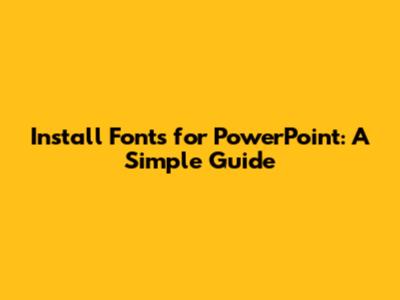
Readability: This is crucial. Make sure your chosen font is easy to read, even from a distance. Avoid overly decorative or complex fonts for body text.
Purpose: Match the font to the tone and subject of your presentation. A serious topic might call for a more formal font, while a creative presentation can handle something more whimsical.
Consistency: Stick to a limited number of fonts (2-3 max) throughout your presentation to maintain a cohesive look.
Font Pairing: Not all fonts play nicely together. Experiment with different font pairings to find combinations that complement each other and create a visually appealing hierarchy. Tools and resources online can provide suggestions for harmonious font pairings. A classic pairing is a sans-serif font for headings and a serif font for body text, as this offers contrast and improves readability. Another consideration is the font weight. Use different weights of the same font family to create visual interest without introducing too many different fonts. For example, using bold for headings and regular for body text can make your slides more organized and easier to follow. Also, think about the cultural context of your font choice. Some fonts may have unintended connotations in different cultures, so it’s good to be aware of these nuances, especially when presenting to a global audience.
Hey guys! Ever felt like your PowerPoint presentations are missing that special something? Maybe the default fonts just aren't cutting it, and you're itching to add a bit of flair and personality. Well, you're in luck! Installing new fonts in PowerPoint is super easy, and it can dramatically improve the visual appeal of your slides. In this guide, we'll walk you through everything you need to know to get those snazzy new fonts up and running in no time. We will cover how to find the best fonts to download, install fonts on Windows and macOS operating systems, and how to embed fonts into your PowerPoint presentation.
Finding the Perfect Fonts
Before diving into the installation process, let's talk about finding the right fonts for your presentation. The font you choose can significantly impact how your audience perceives your message. A clean and professional font can convey trustworthiness, while a more playful font can add a touch of creativity. Websites like Google Fonts, Adobe Fonts, and DaFont offer a vast selection of free and paid fonts. When selecting fonts, consider the following:
Downloading Your Chosen Fonts
Once you've found the perfect font, downloading it is usually a breeze. On most font websites, you'll find a download button or link. The font will typically be downloaded as a ZIP file. After downloading the ZIP file, extract its contents to a folder on your computer. Inside, you should find one or more font files, usually in .ttf (TrueType Font) or .otf (OpenType Font) format. These are the files you'll need to install. Make sure to keep these files organized in a location where you can easily find them, in case you need to reinstall them or refer back to the license information. Backing up your downloaded fonts is also a good practice, as it ensures you have a copy if your computer crashes or you accidentally delete them. Consider using a cloud storage service or an external hard drive for your font backups. Also, be wary of downloading fonts from unfamiliar or untrusted websites. These sites may bundle malware or viruses with the font files, which can compromise your computer's security. Stick to reputable font foundries and marketplaces to ensure you're downloading safe and legitimate fonts.
Installing Fonts on Windows
For those of you on Windows, here's how to get those fonts installed:
Another method is to copy the font files directly into the Windows fonts directory. To do this, press the Windows key, type "Fonts," and open the Fonts folder. Then, simply drag and drop the font files into this folder. Windows will install the fonts automatically. Using this method can be helpful if you're installing multiple fonts at once. Keep in mind that you may need administrator privileges to install fonts on Windows, especially if you're using a shared computer or a corporate device. If you encounter any issues during the installation process, such as error messages or fonts not appearing in PowerPoint, try restarting your computer or running the font installation program as an administrator. You can also check the font file for corruption by opening it in the font preview window. If the font doesn't display correctly, it may be a sign that the file is damaged and needs to be re-downloaded.